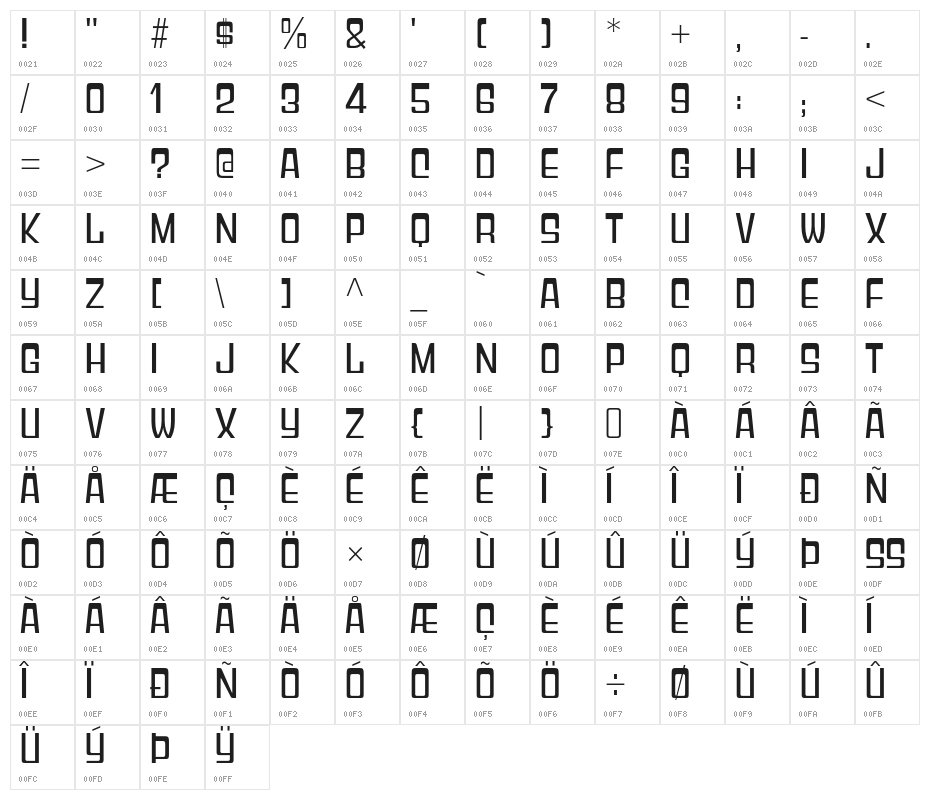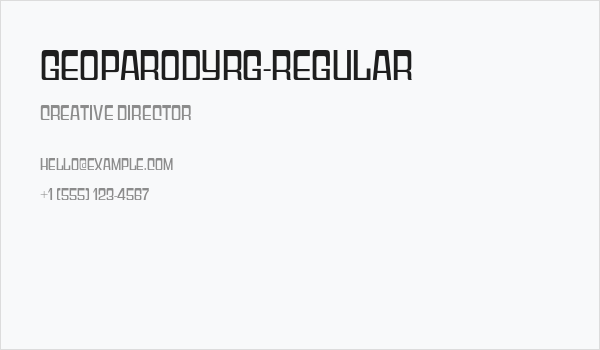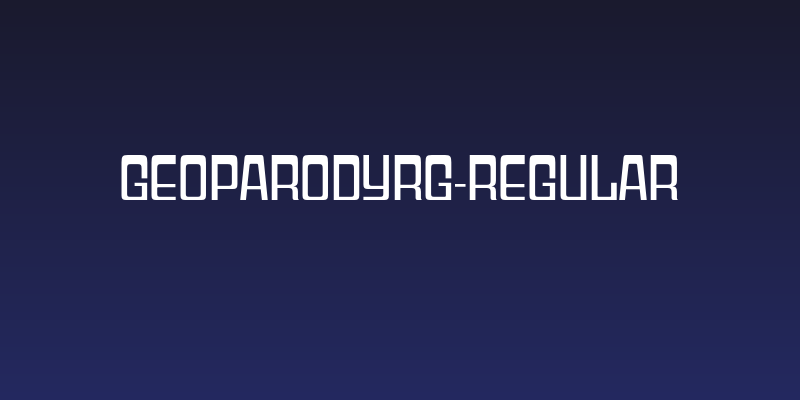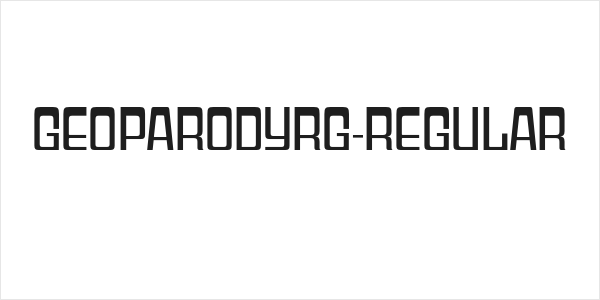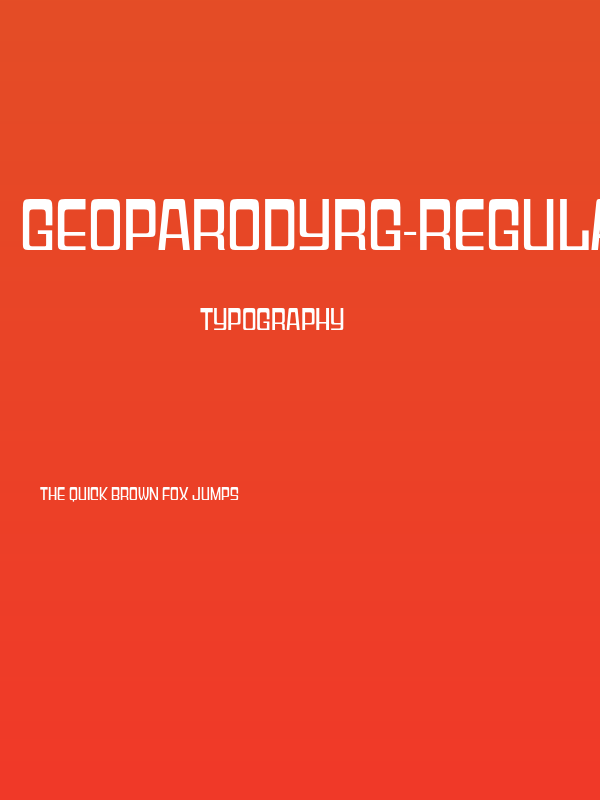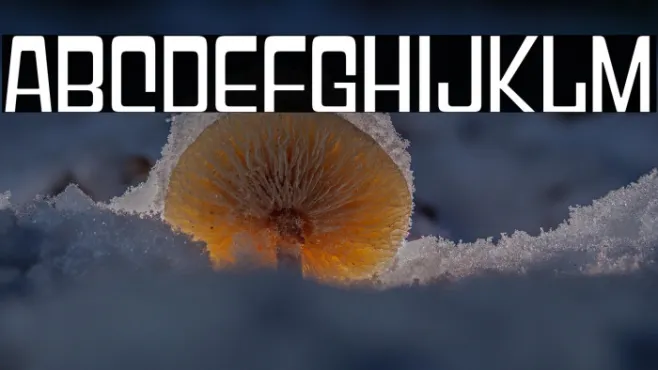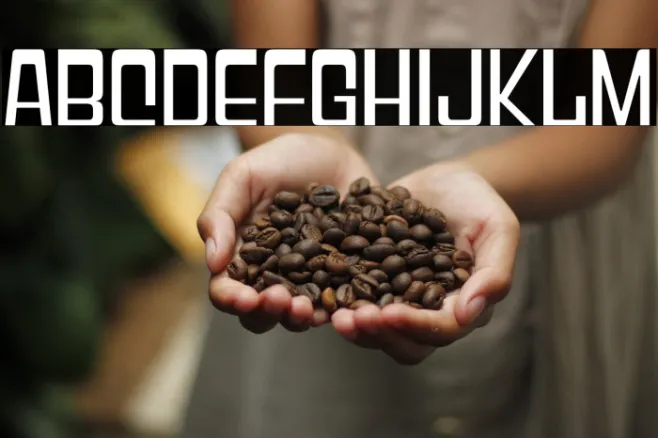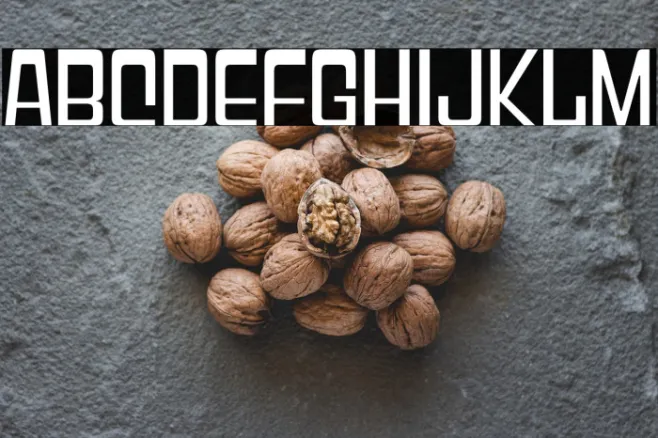
GeoparodyRg-Regular Font
GeoparodyRg-Regular Description
This font features a bold, geometric design with a modern and futuristic aesthetic. The characters are constructed with a mix of straight lines and subtle curves, creating a sense of precision and structure. The uppercase letters are uniform in height, while the lowercase letters maintain a consistent style, echoing the uppercase's geometric form. The numerals are distinct and easily readable, with a similar boldness and clarity. Special characters are well-integrated, maintaining the overall design ethos. The font's clean lines and structured appearance make it suitable for a variety of design applications.
| Proposed Projects | Ideal for branding, posters, headlines, and digital interfaces where a modern and structured look is desired. |